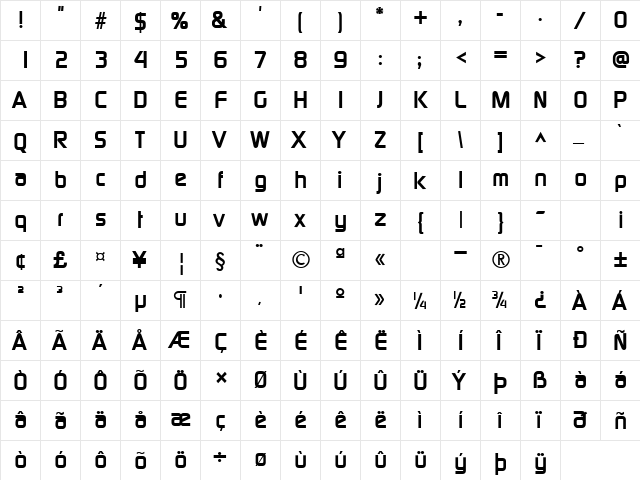
Newage Bold
Design Context for Newage Typeface
Newage takes a measured approach to typography — its balanced proportions and neutral character make it a reliable workhorse for both digital and print work. Its bold stroke weight gives it real presence on the page.